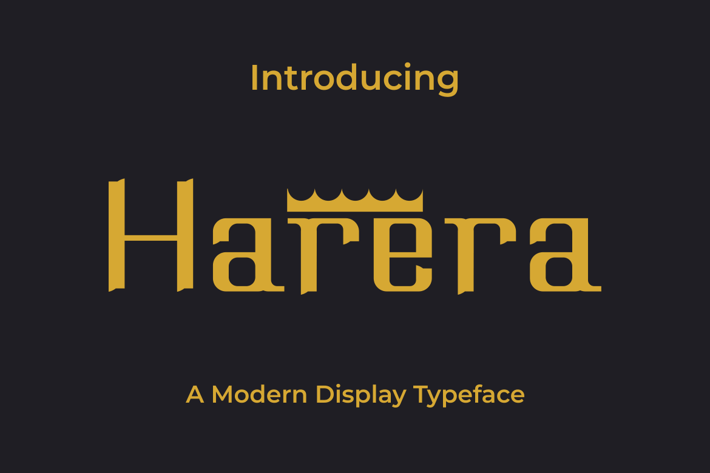
Harera Font
Introducing our new product Harera Font - Modern Font
Harera Font - Modern Font is a bold and authentic display font. The font is suitable for any branding project like logo, t-shirt printing, esport, and many more. outstanding in a wide range of contexts.